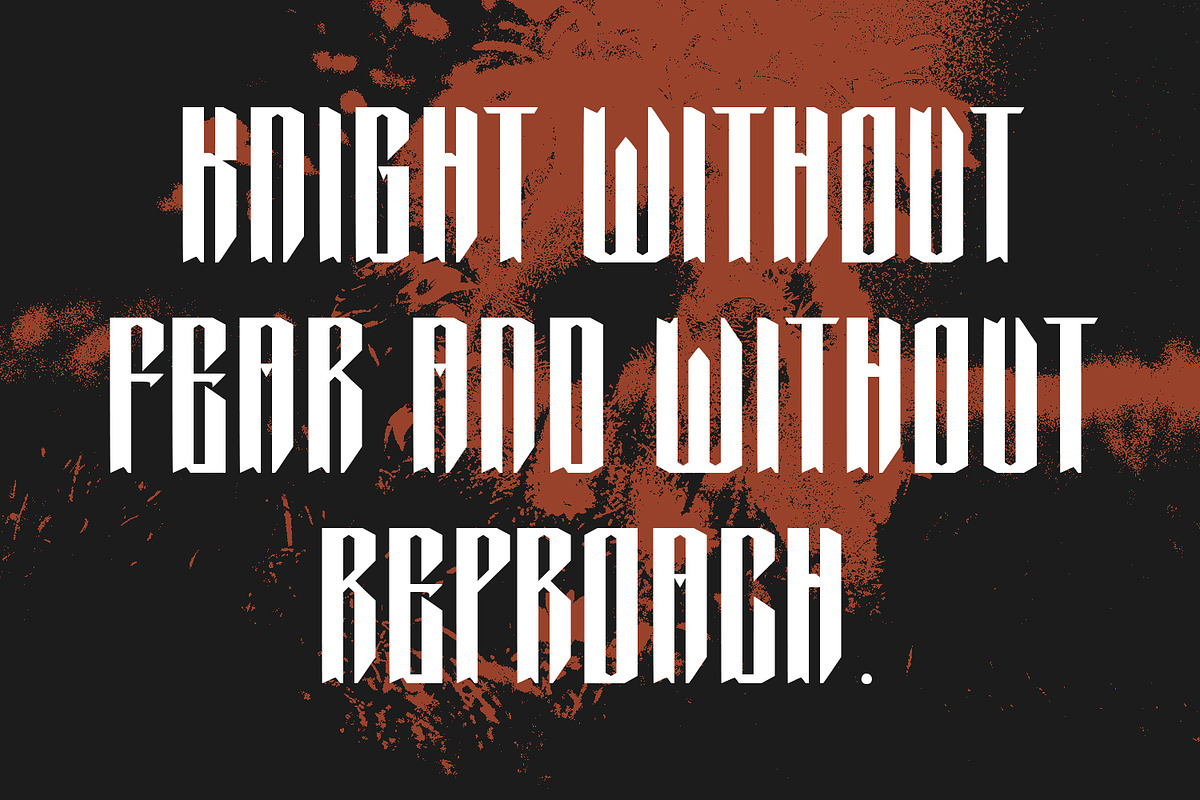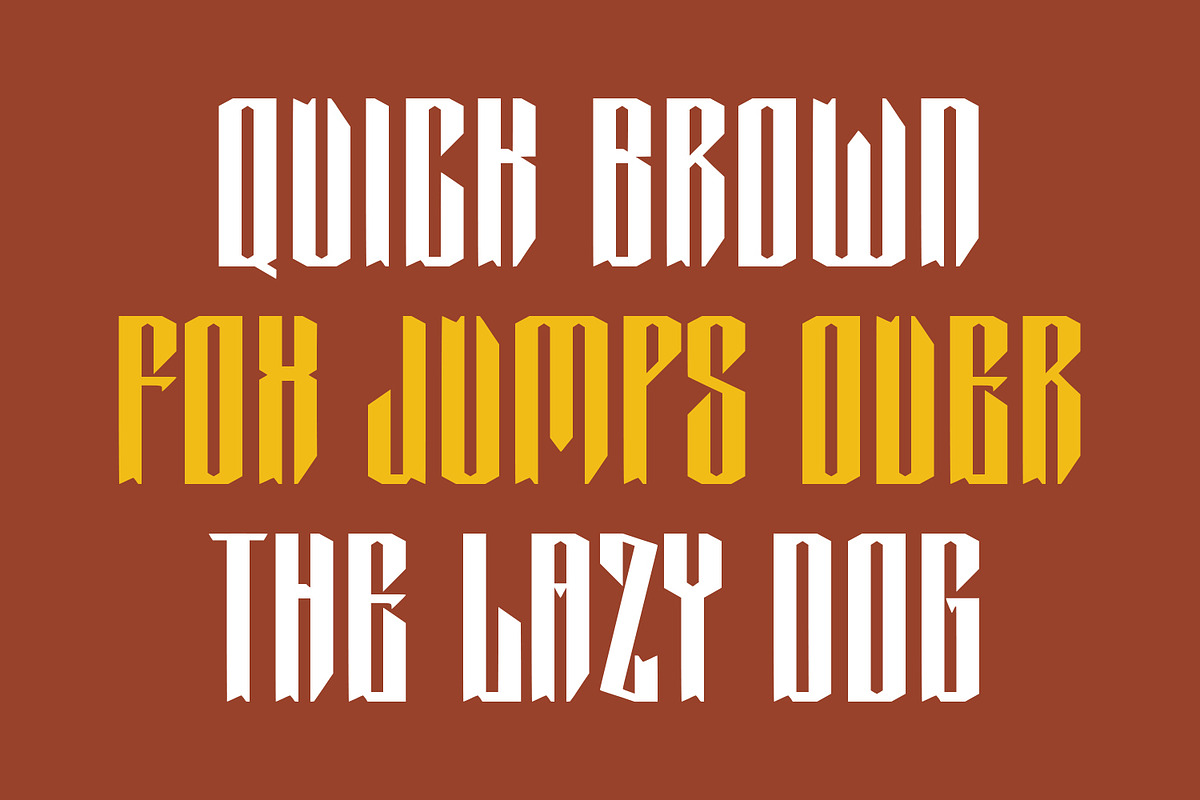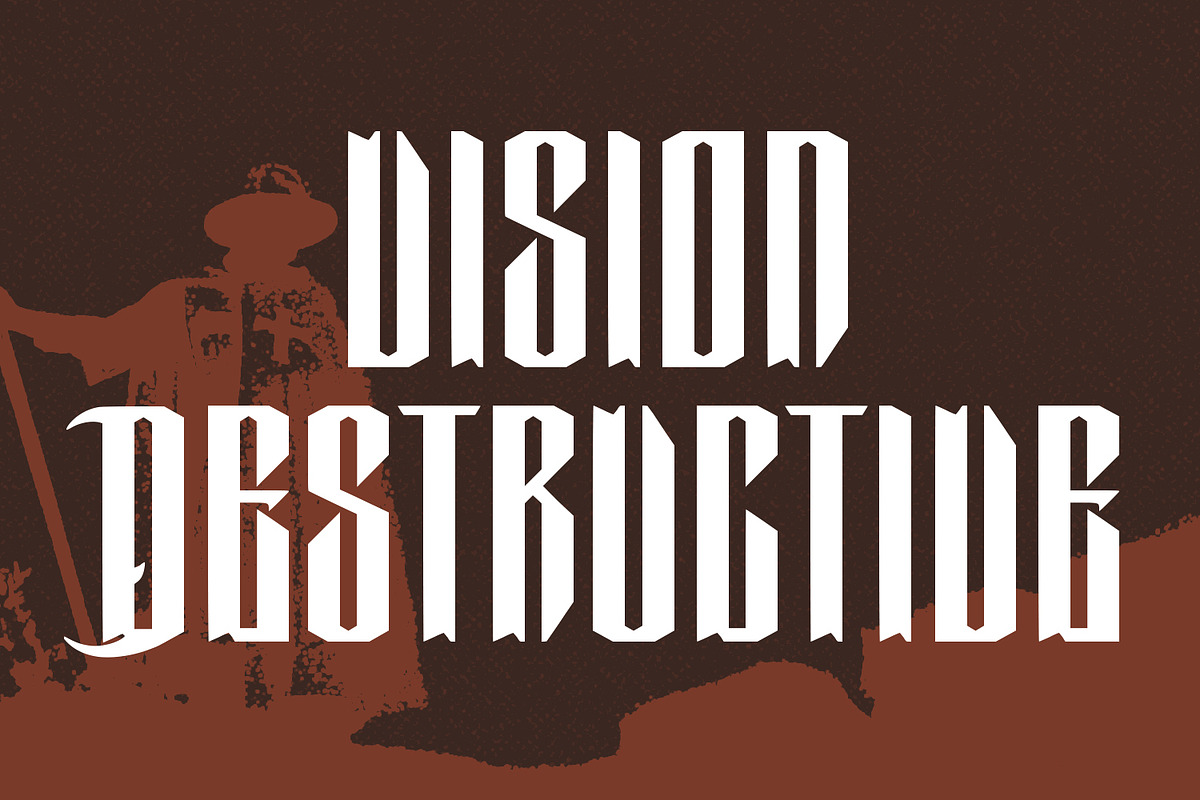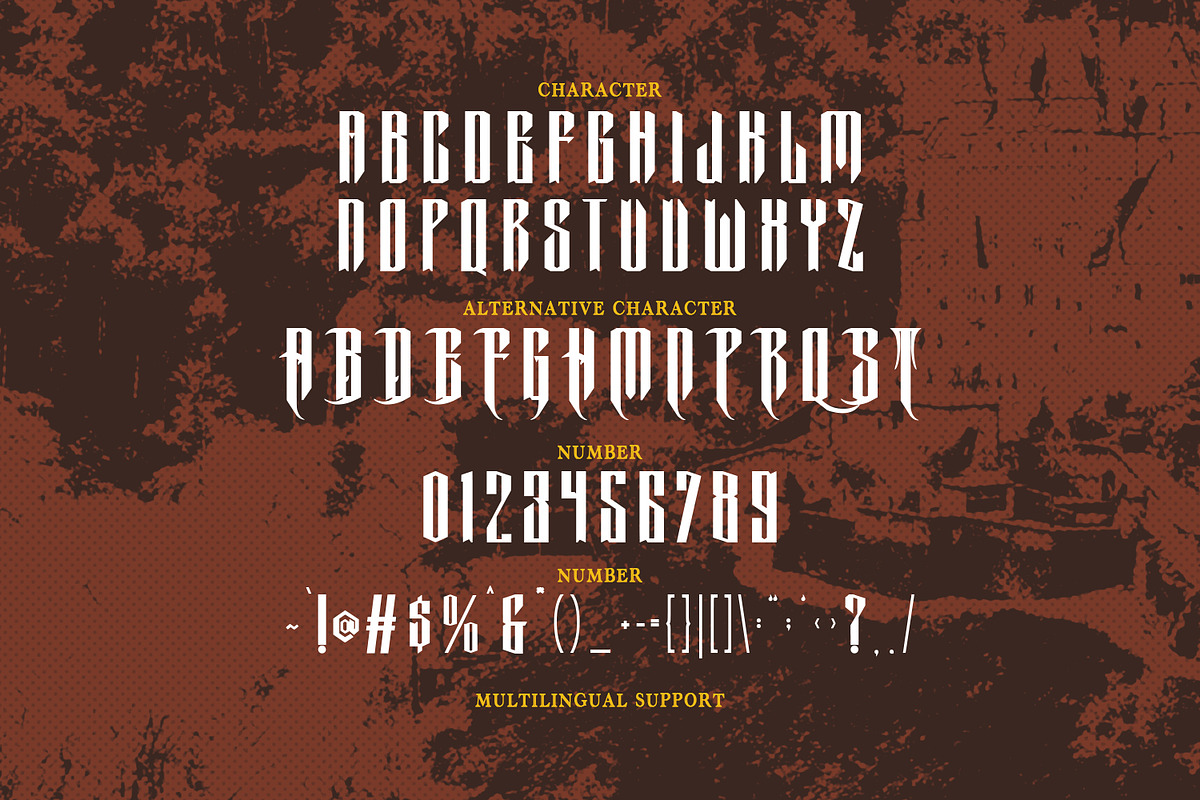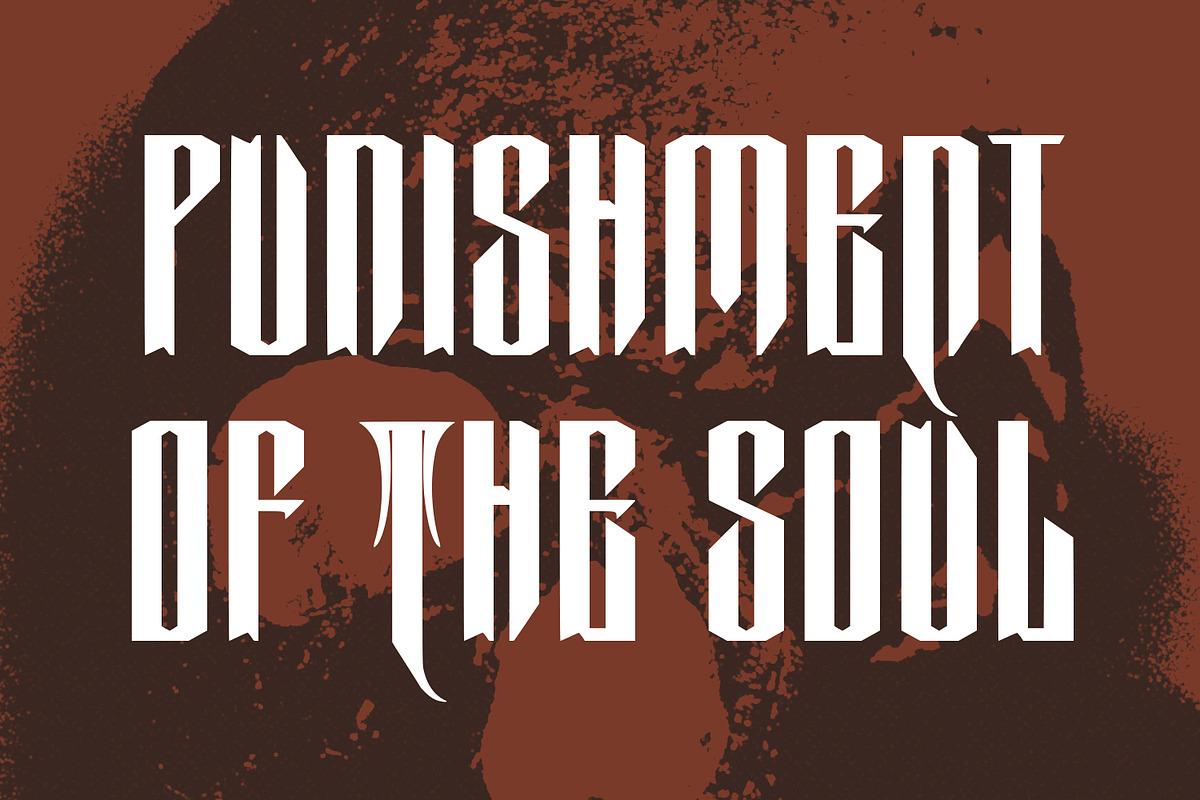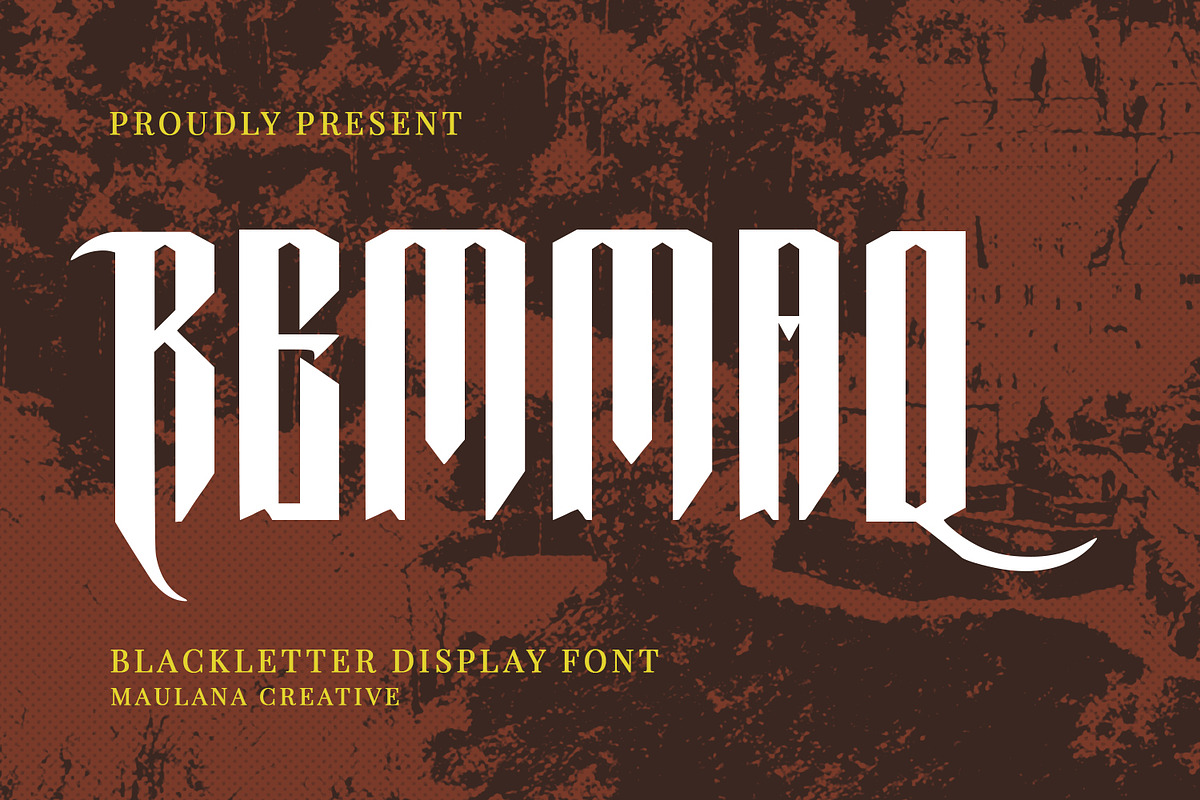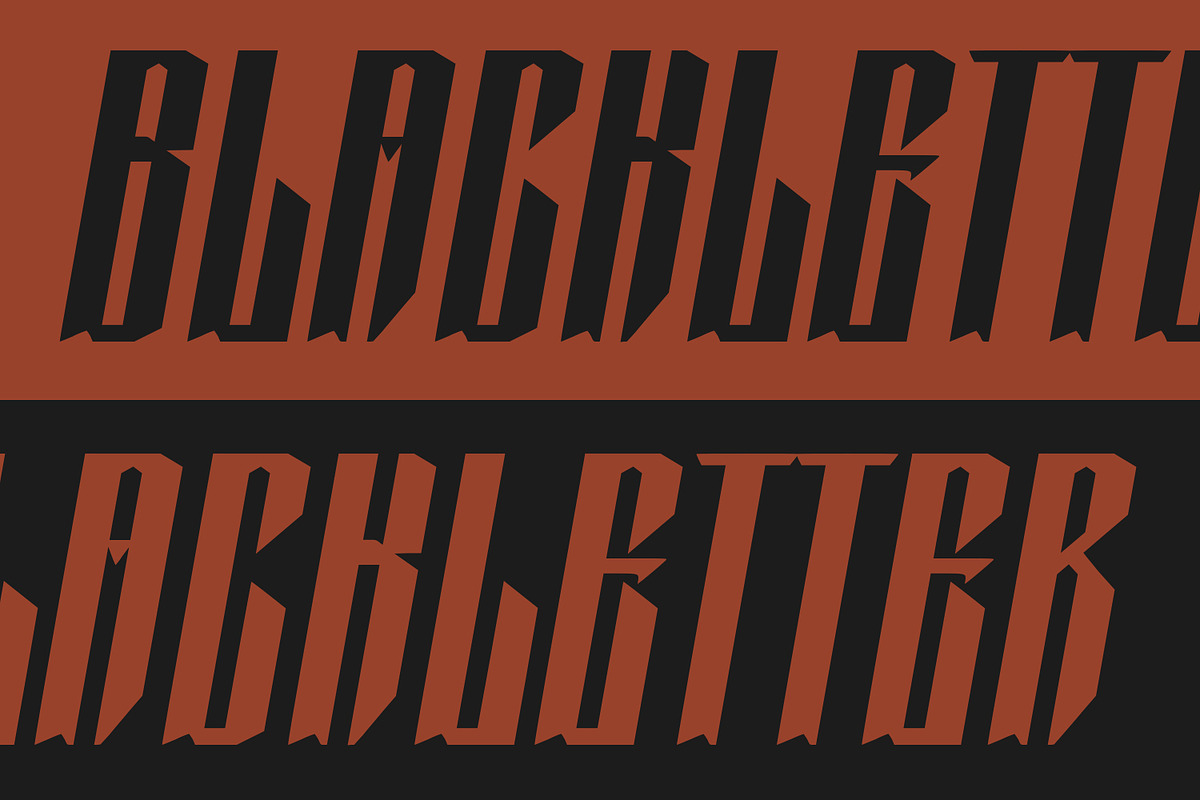
Remmaq Blackletter Display Font
Introducing Remmaq Blackletter Display Font.
Remmaq Blackletter Font is a handmade Modern Victorian handlettering, which is combining modern and classic typography with some awesome alternates. Yes we back to early 1800s, bring classic touch on this decade.